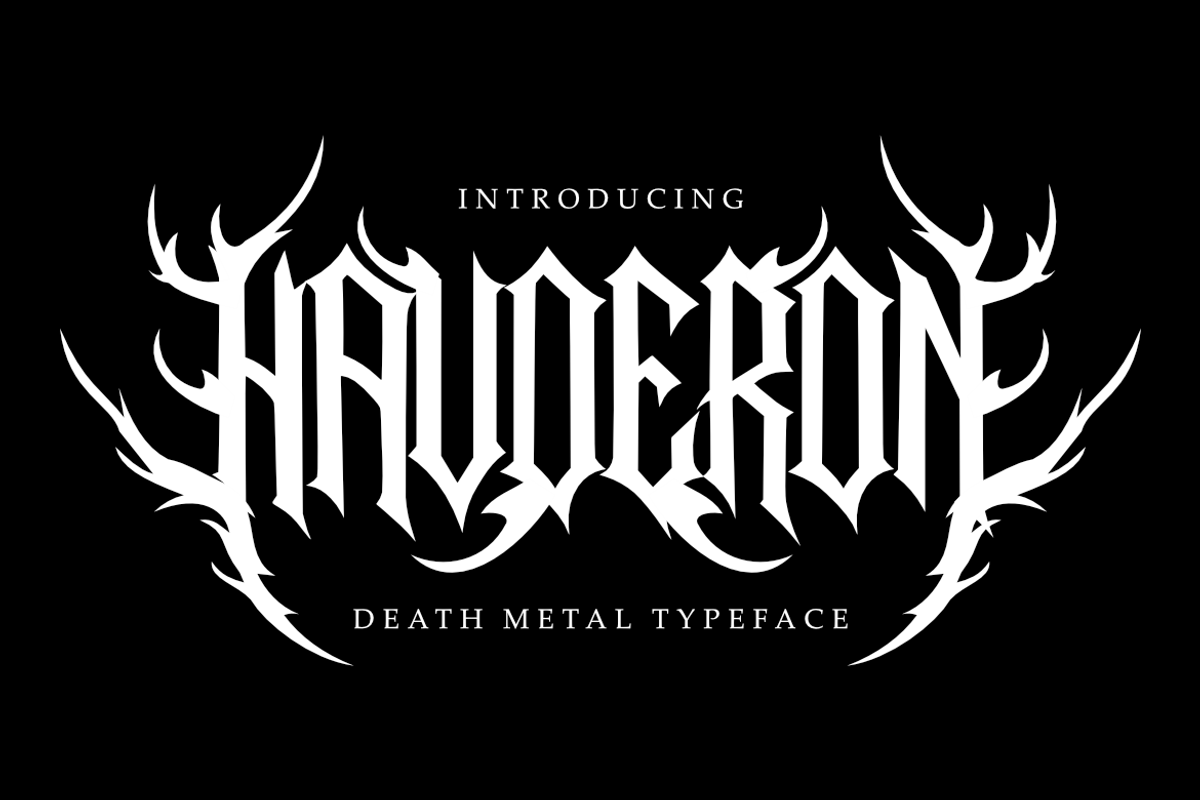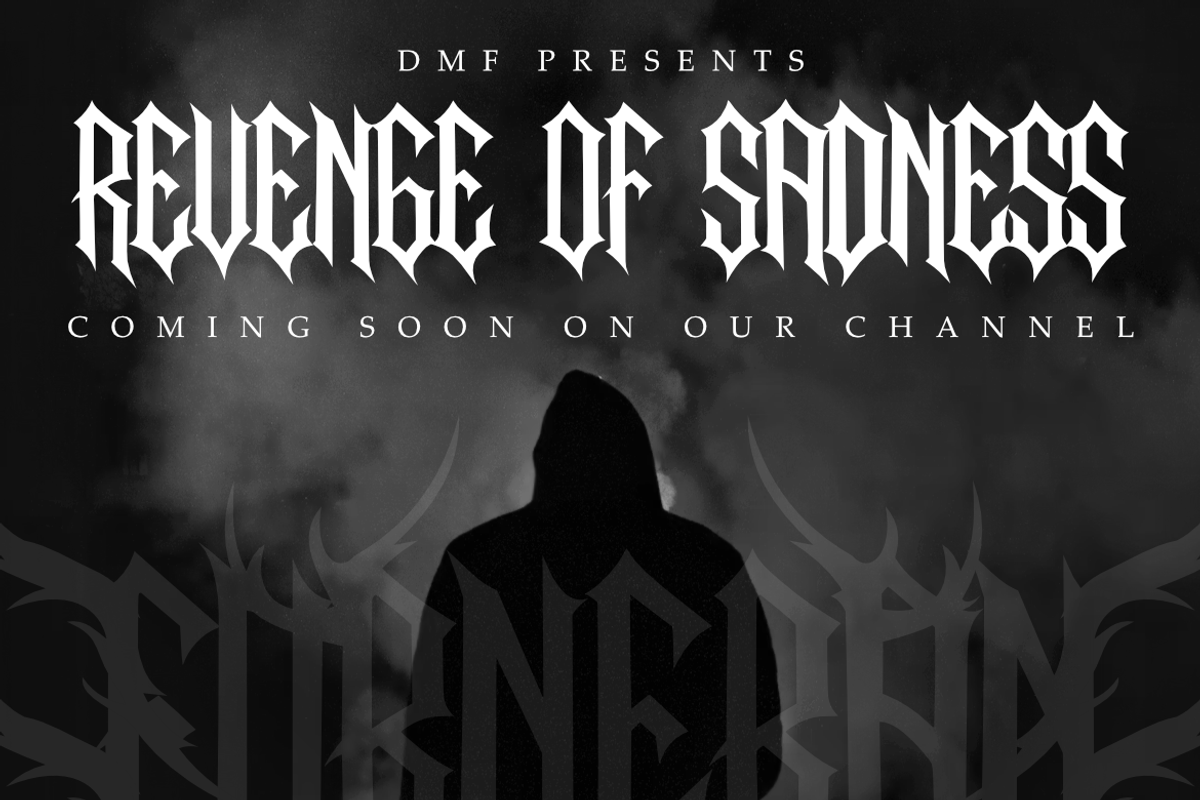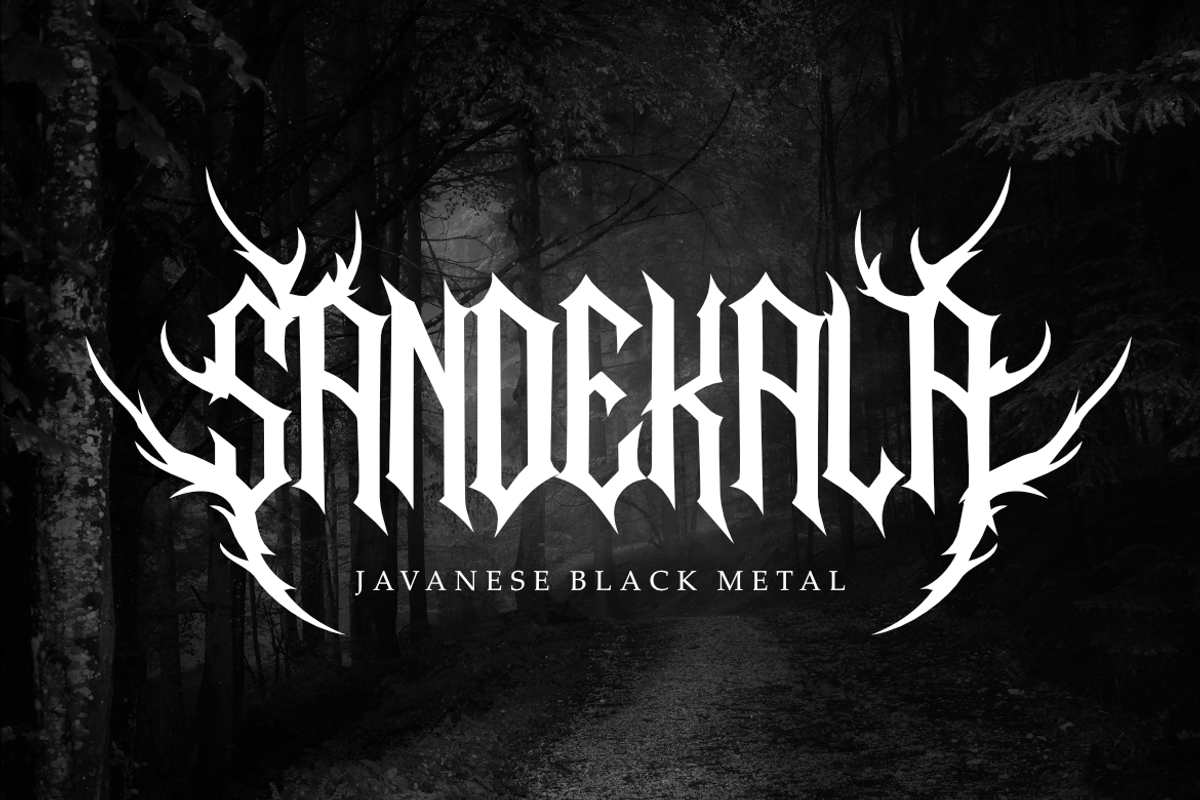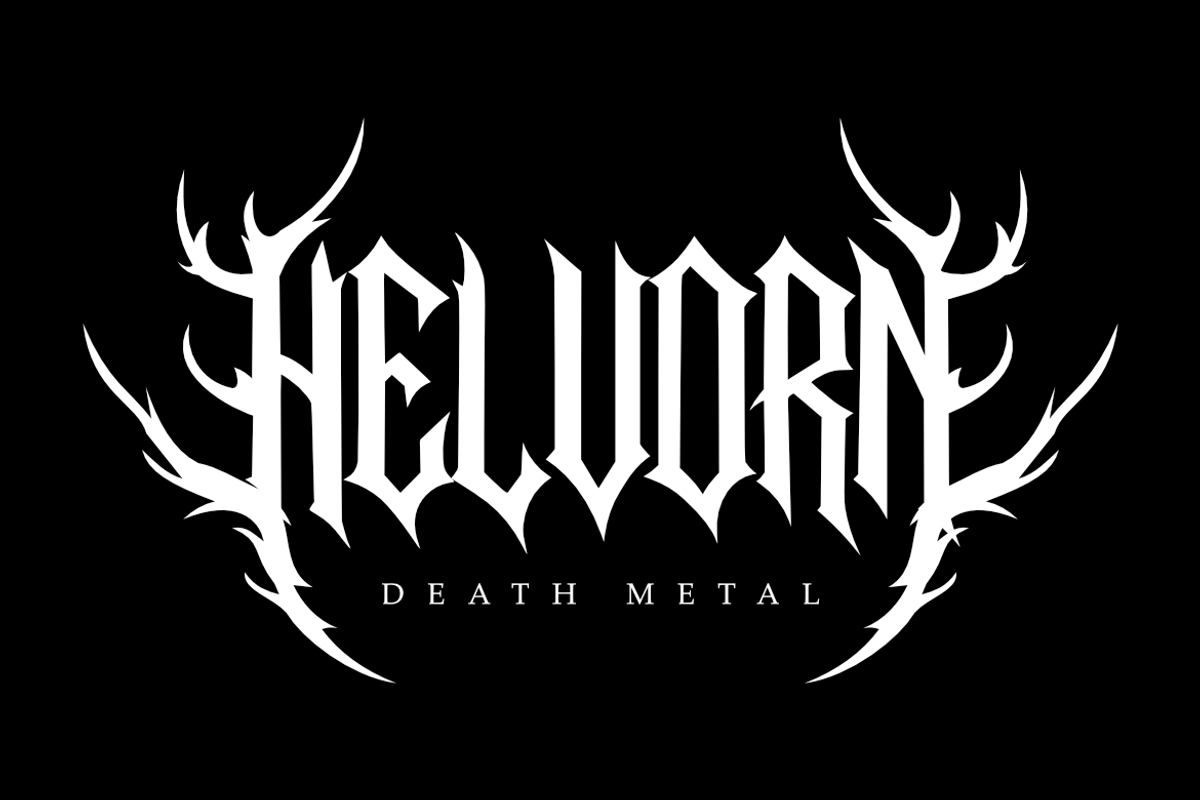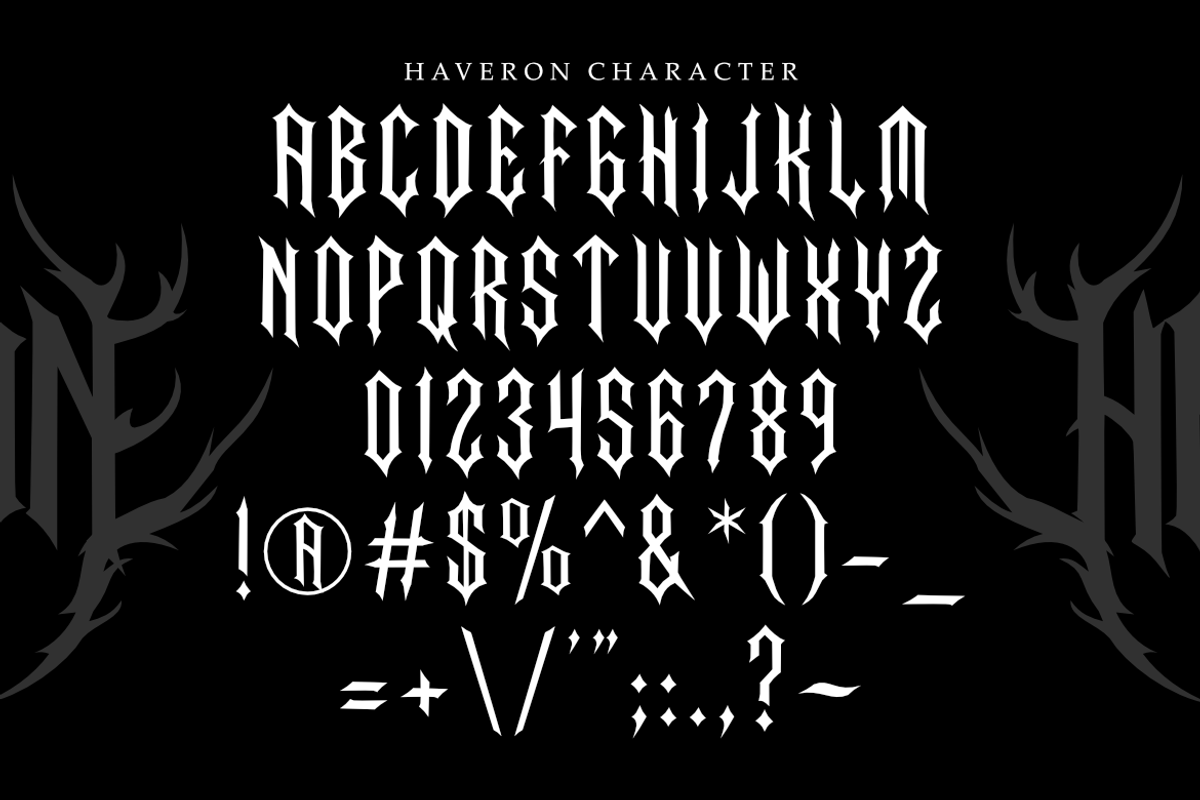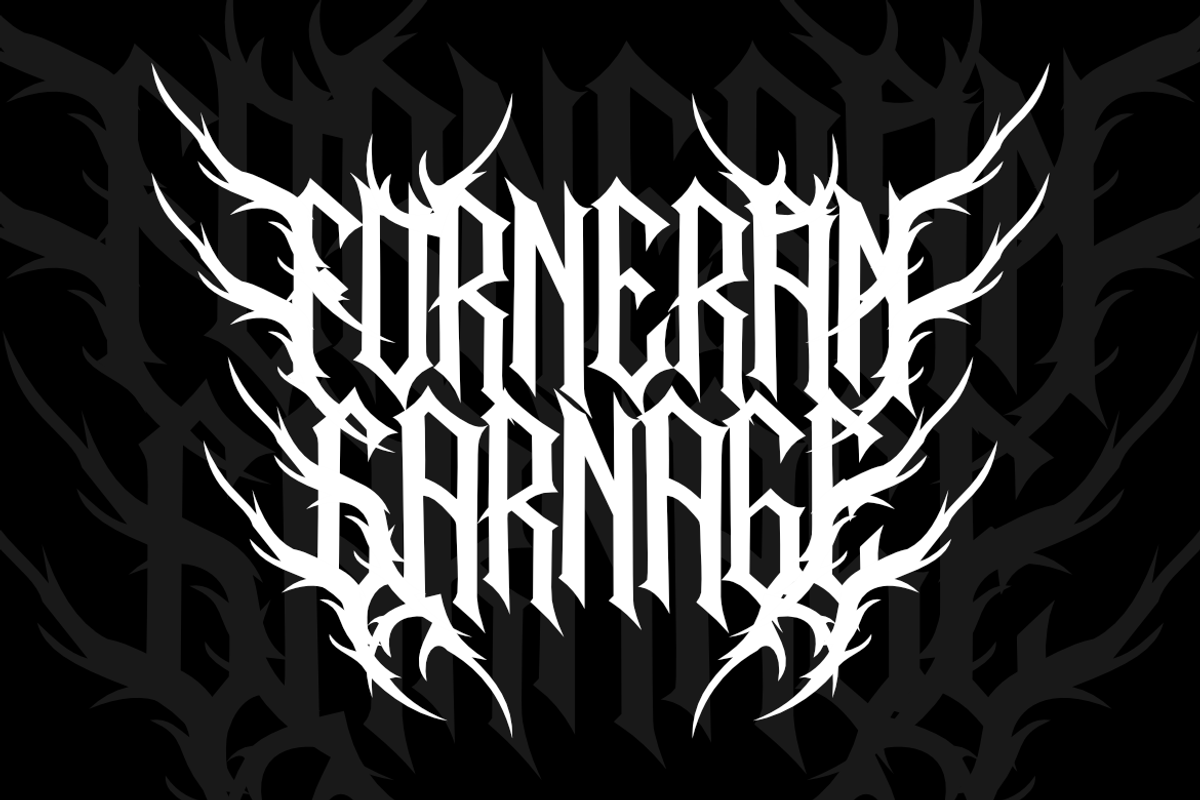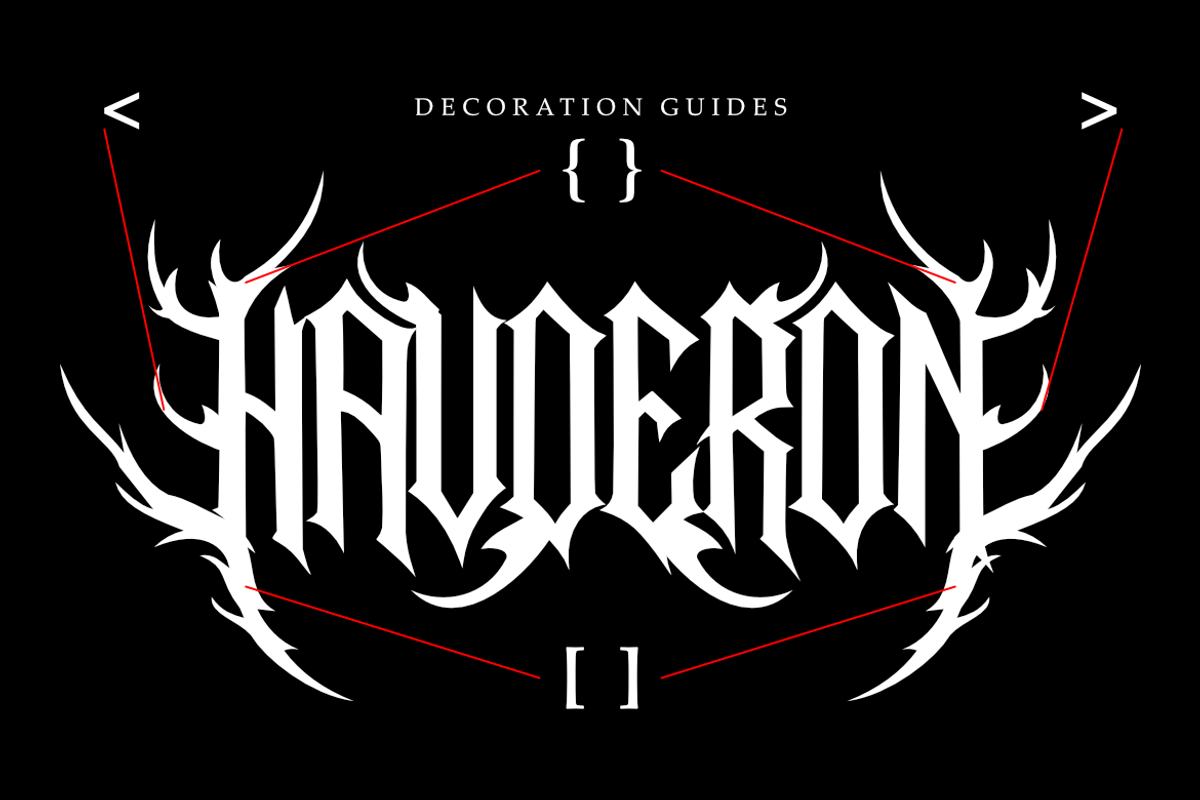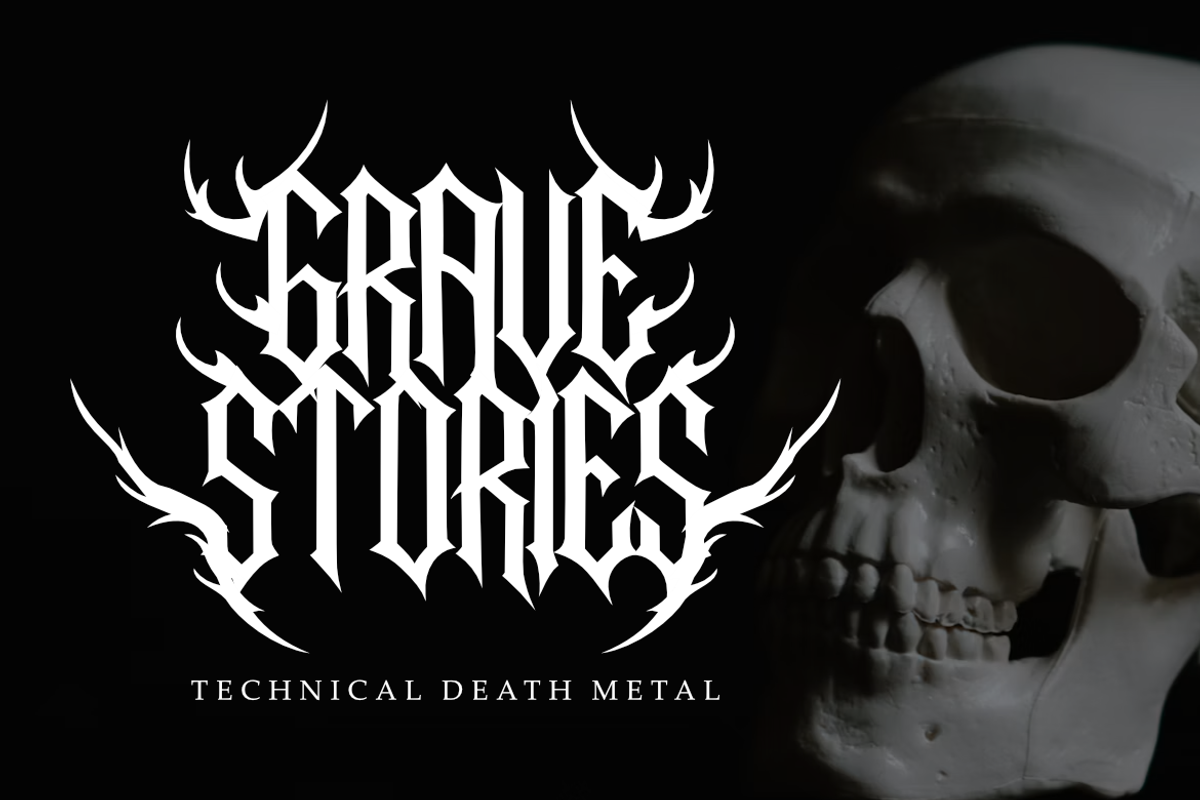
Haveron | Death Metal Typeface
Unleash dark, raw power with Haveron, an extreme death metal typeface crafted for brutal visual identities, heavy music branding, and dark underground art. Blending classic blackletter shapes with aggressive spiky flourishes and jagged thorns, Haveron brings authentic underground metal aesthetics to your design arsenal.
Engineered specifically for heavy music culture, Haveron is perfect for creating high-impact band logos, album art, shirt graphics, festival banners, and dark horror typography. Its intricate structure and powerful silhouette ensure that your artwork stands out with unmistakable intensity.
Perfect for high-impact headlines, band logos, and extreme merch design.